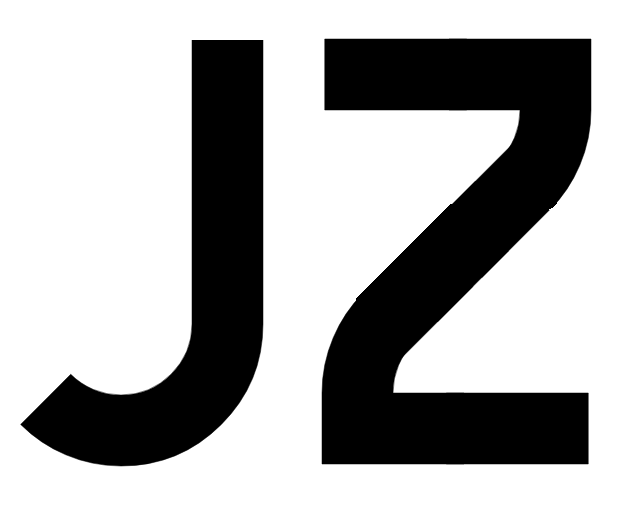
• another retro-futurism deco font, had a bit of fun with the lowercase "g"
oh wow, i'm early! also, this is the first time that on one of your fonts, the lowercase is actually different from the uppercase!
Congrats. Enchanting font and demo pict, as usual. My 10 2U. I allow myself to suggest small modifications for J and Z, although I know they would break a bit the flow of the font.
elmoyenique, thank you for the kind words and the suggestion. the sample provided looks great, but i agree that it would break the uniformity and flow of the font. that being said, your idea will be kept on the back burner as a future possibility~
It's very beautiful, I like it. Very nice soft character, as opposed to your other fonts. Have you thought about adding the Cyrillic alphabet? I think it would look very good in this font.
thank you for sentiment sychoff. i'll admit i'm rather unfamiliar with the cyrillic alphabet and sadly am not sure if i'd be able to it justice